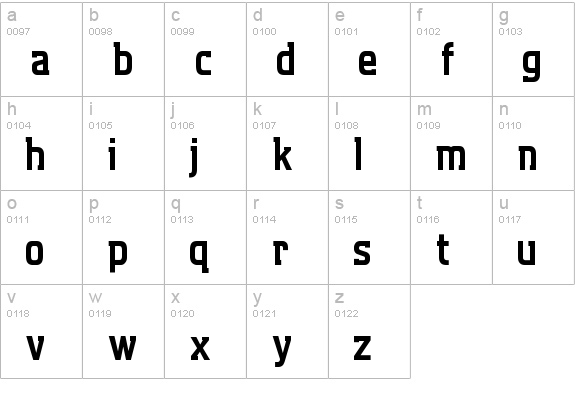
AquariusSix Font Details
AquariusSix is a modern and sleek font that exudes sophistication and creativity. With its clean lines and stylish appearance, this font is perfect for a variety of design projects, from logos to branding to marketing materials. The unique combination of sharp angles and soft curves gives AquariusSix a distinctive and eye-catching look that will make your text stand out. One of the best features of AquariusSix is that it is available for free download at FontsMarket.com. This means that you can easily access this beautiful font and use it in your projects without any cost. Whether you are a professional designer or a hobbyist looking to add a touch of elegance to your work, AquariusSix is a fantastic choice that won't break the bank. Don't miss out on the opportunity to elevate your designs with the stylish and versatile AquariusSix font. Download it for free today and unleash your creativity!